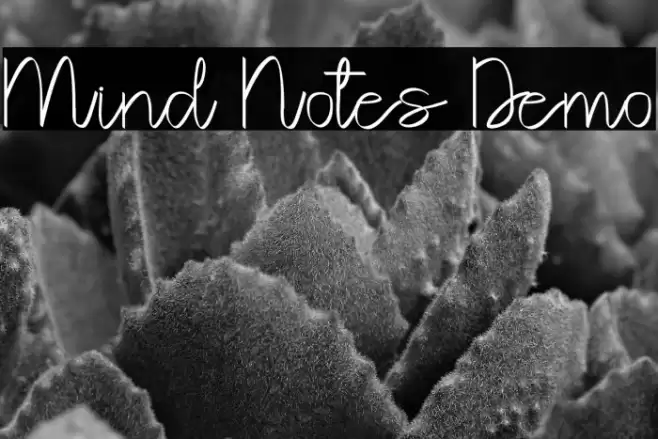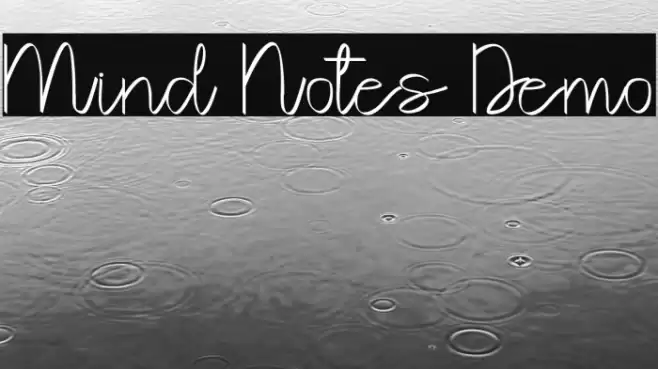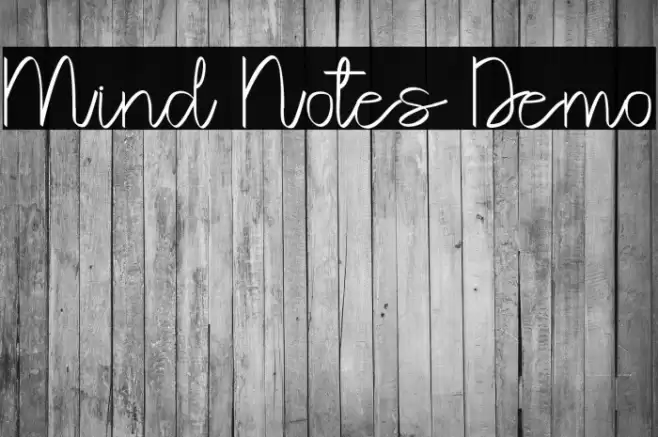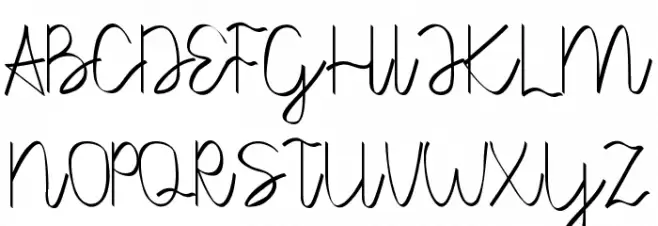
Mind Notes Demo Font
Mind Notes Demo Description
This font features a handwritten, cursive style with a playful and casual appearance. The letters are connected, giving it a fluid and continuous look. The strokes are smooth and consistent, with a slight variation in thickness that adds a touch of elegance. The uppercase letters are distinct and slightly larger than the lowercase, maintaining a harmonious balance. The overall design is modern yet retains a classic handwritten charm, making it versatile for various creative projects.
A playful, handwritten cursive font with smooth, connected strokes from Regular fonts.
- Proposed Projects: Ideal for personal notes, invitations, greeting cards, and creative branding projects.
- Use Case: Logos, Invitations, Personal notes